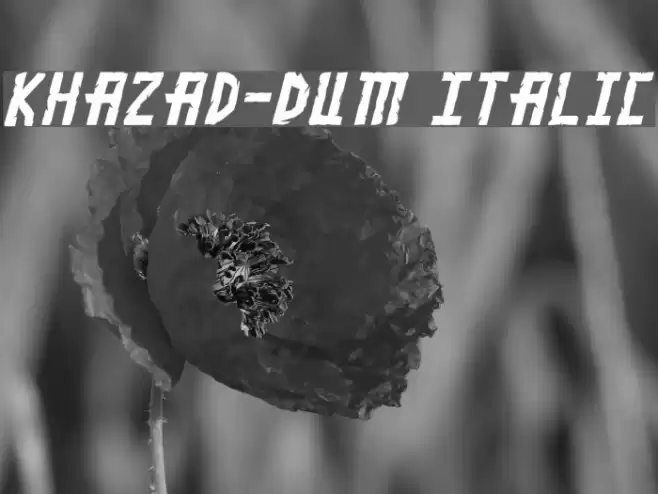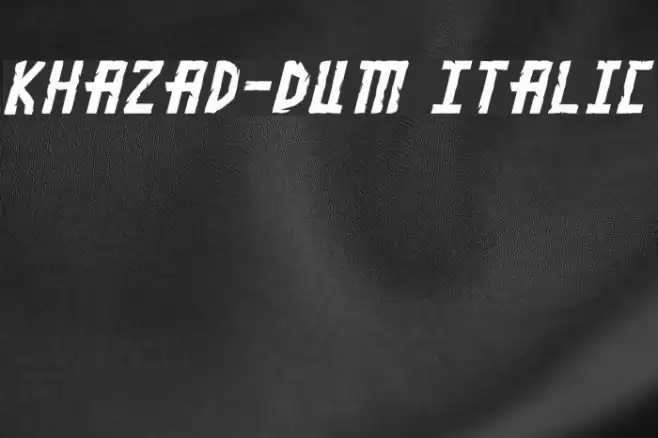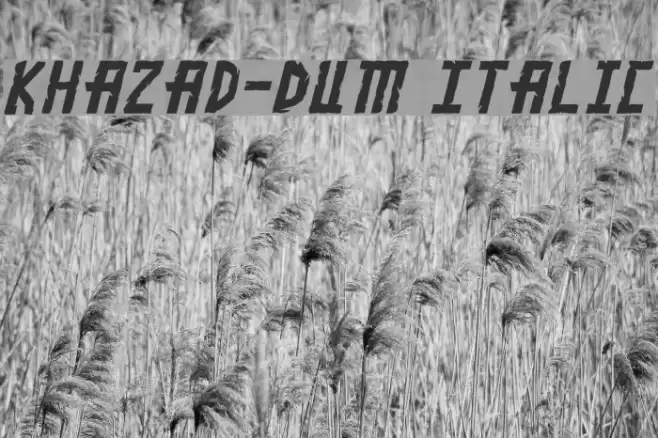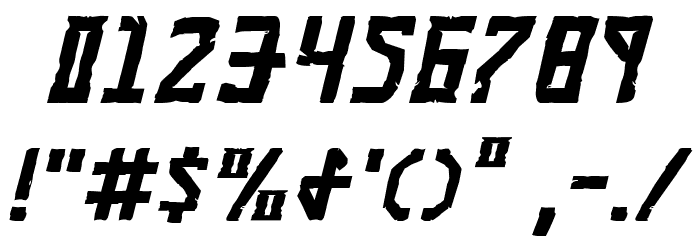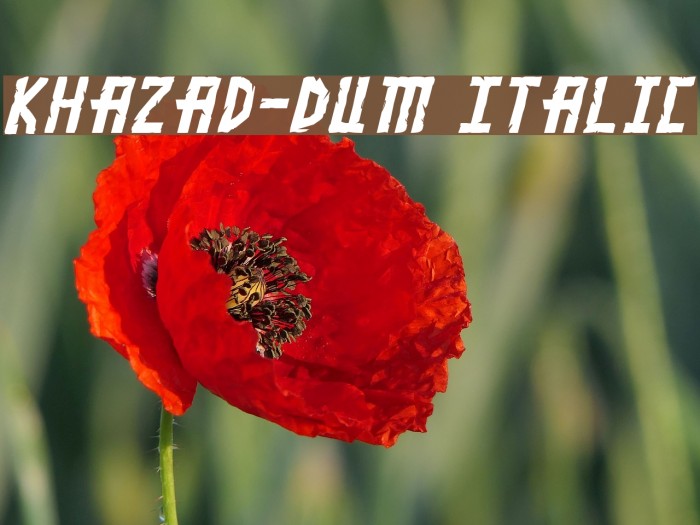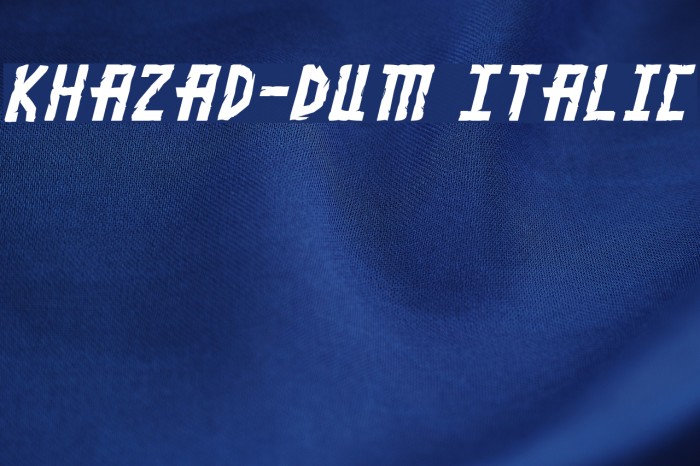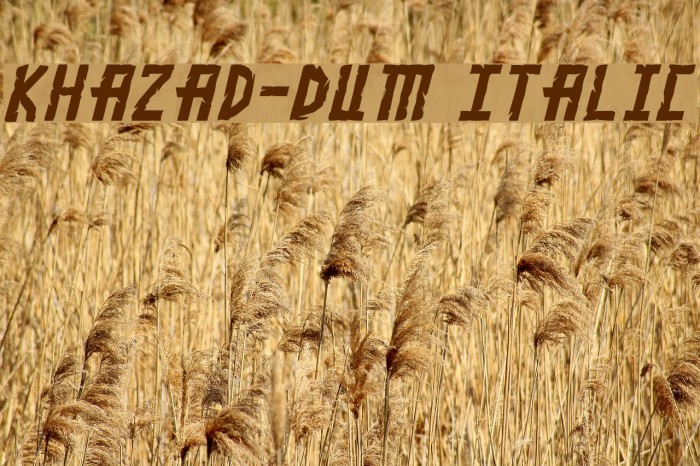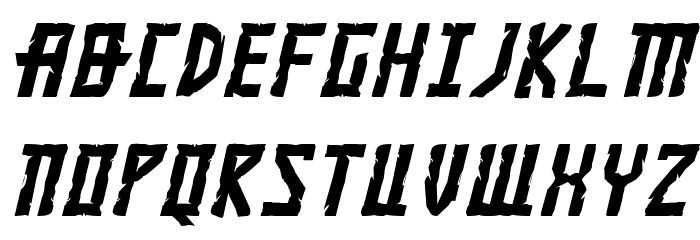
Khazad-Dum Italic Font
Khazad-Dum Italic Description
This font features a bold and angular design, reminiscent of ancient runes or inscriptions. The characters are sharply defined with a distinct slant, giving it an italicized appearance. The strokes are thick and jagged, creating a rugged and powerful look. Each letter maintains a consistent height and width, contributing to a uniform and cohesive style. The font's unique aesthetic makes it suitable for projects that require a strong and impactful visual presence. Its decorative nature is ideal for fantasy-themed designs, evoking a sense of mystery and adventure.
A bold, angular, and italicized font with a rugged, rune-like appearance from Uncategorized fonts.
- Proposed Projects: Ideal for fantasy-themed designs, game titles, movie posters, and adventure book covers.